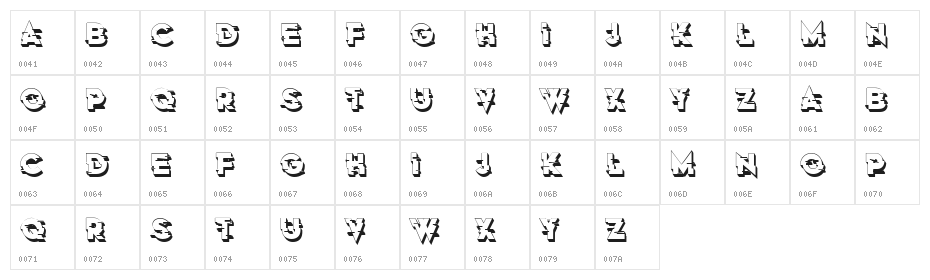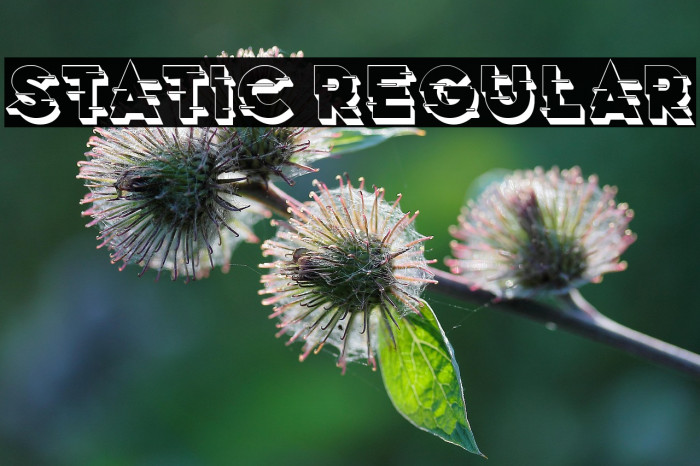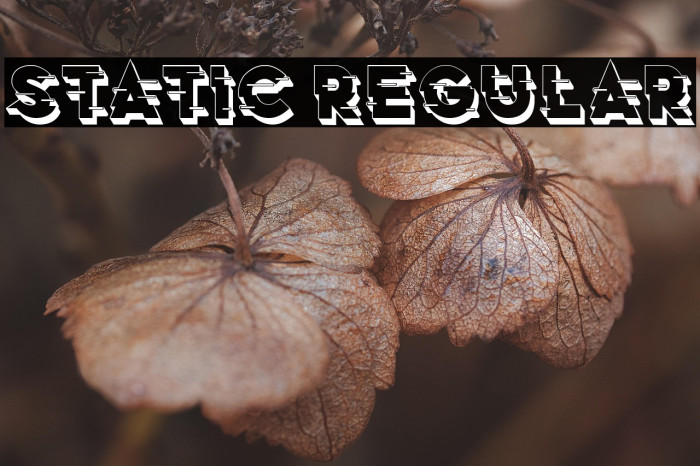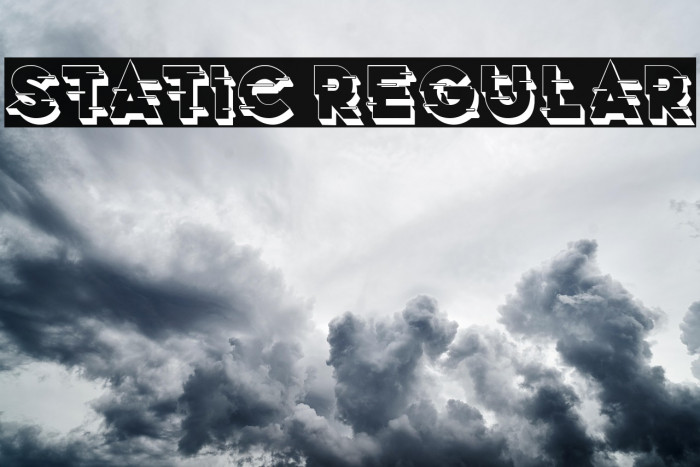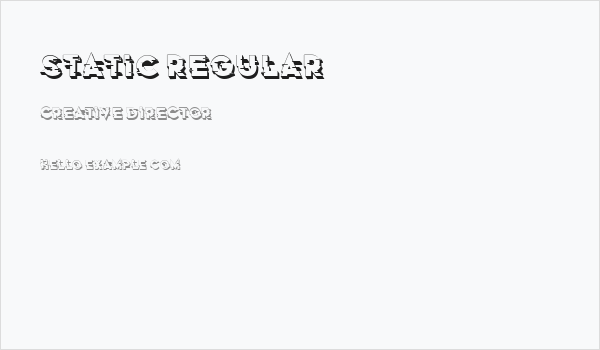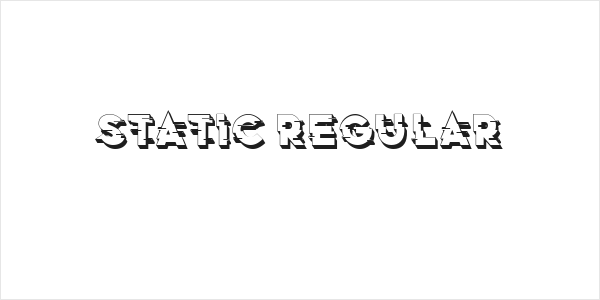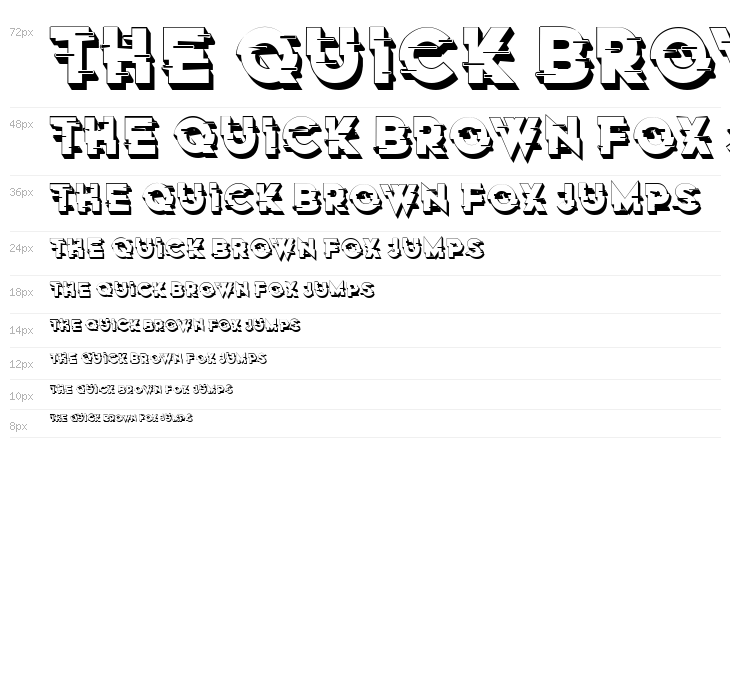
Static Regular Font
Static Regular Description
This font features a bold, three-dimensional style with a strong geometric influence. The letters are uppercase and exhibit a shadow effect that gives them a sense of depth and solidity. The design is characterized by sharp angles and clean lines, creating a striking and modern appearance. The boldness of the font makes it highly visible and impactful, suitable for attention-grabbing designs. The consistent thickness of the strokes adds to its uniformity and balance, while the shadow effect enhances its visual interest.
| Proposed Projects | Ideal for posters, headlines, logos, and any design requiring a strong visual impact. |